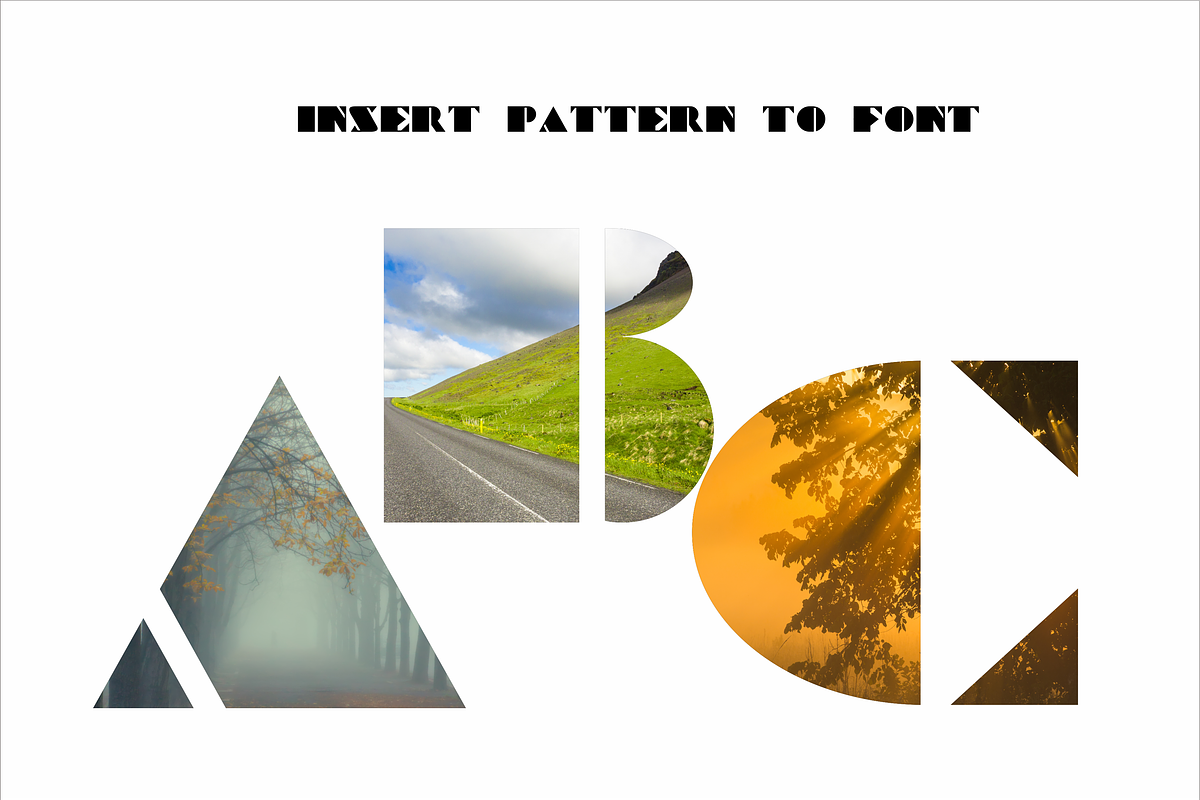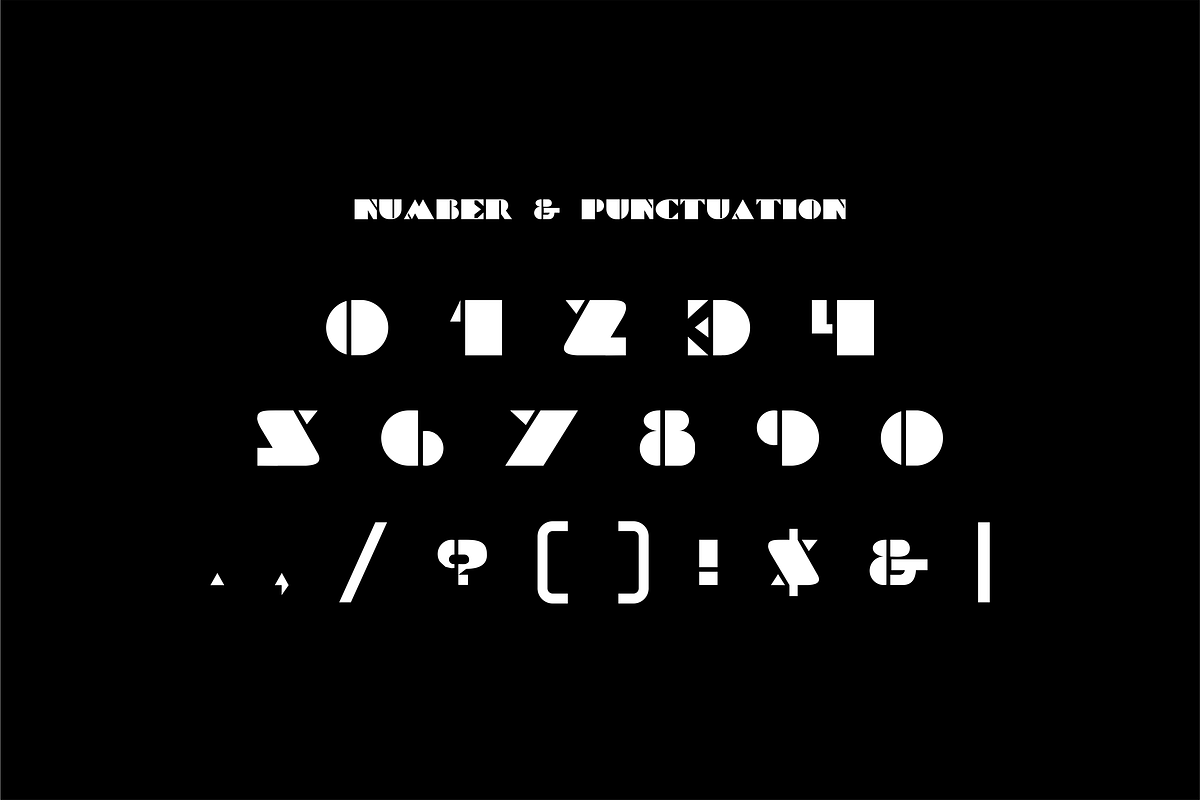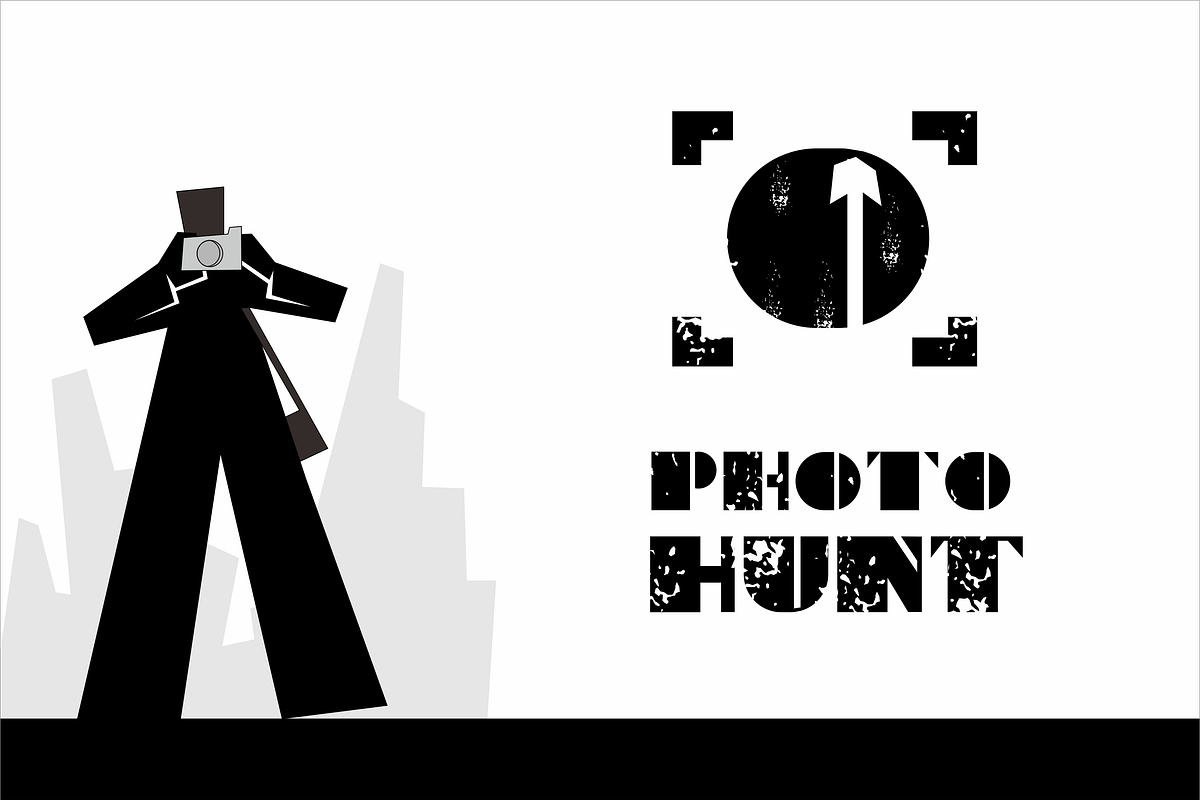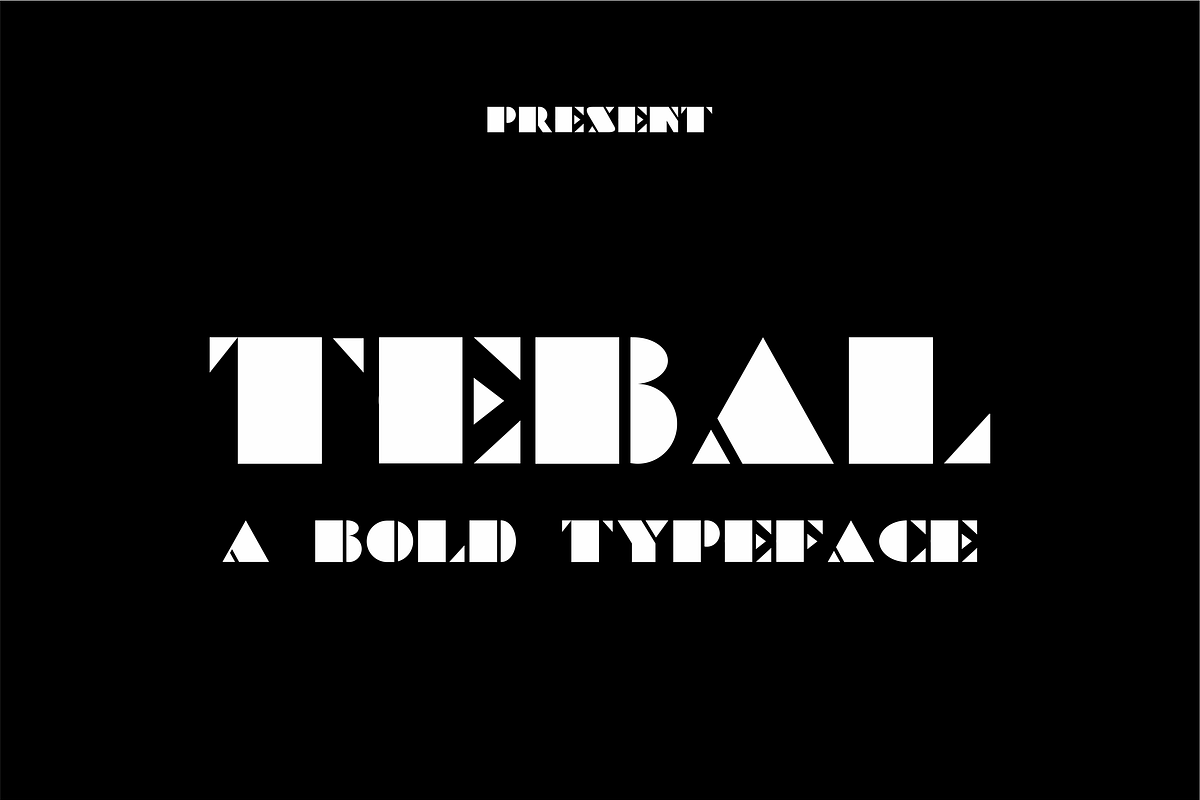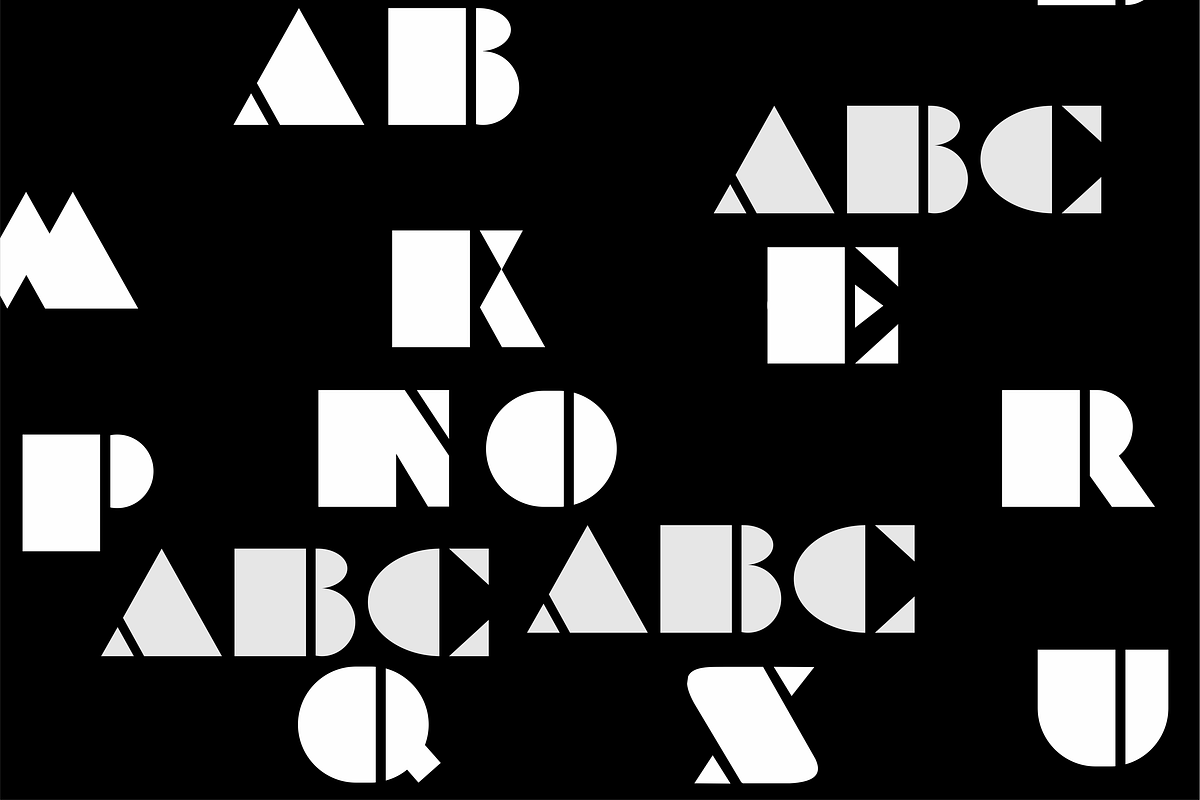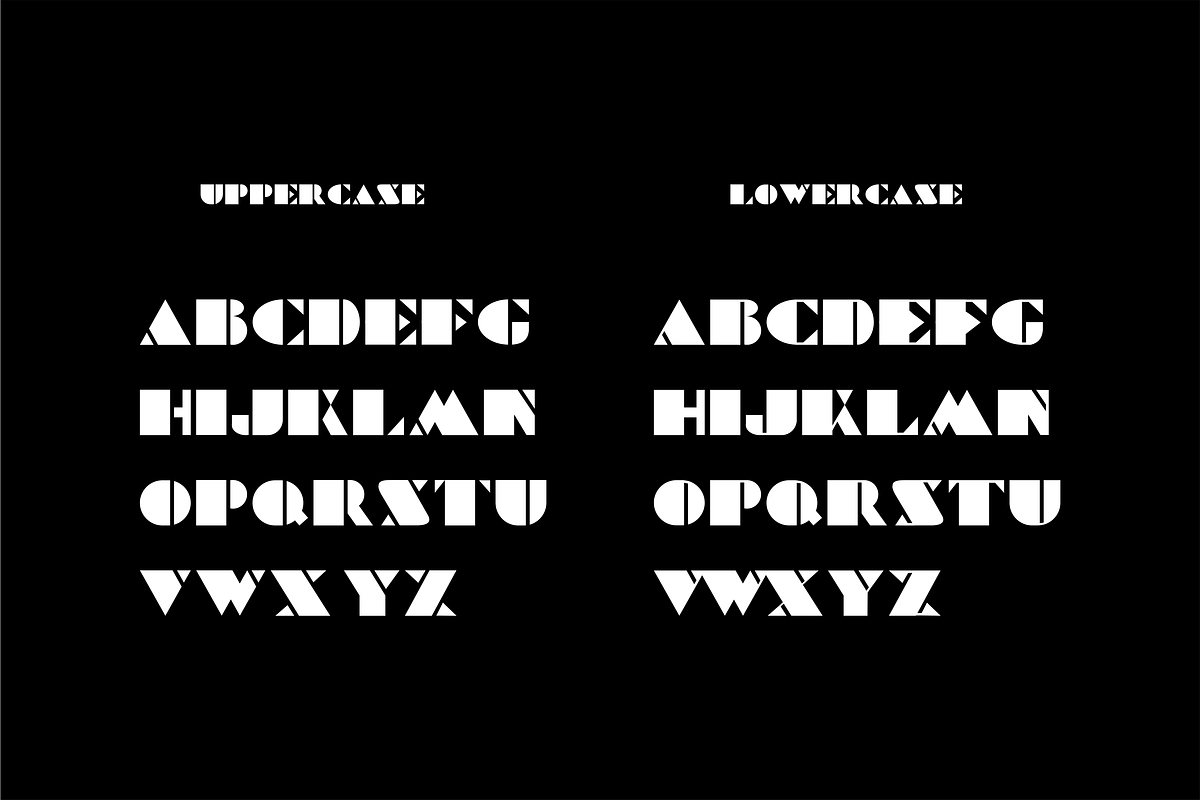
Tebal Font
Tebal is a simple serif typeface designed by Aan kurniawan. This typeface was inspired by classic design but with the feel of clean & simple modern design look. It works great for logo designs, titles, badges, labels and small amounts of text. It contains an uppercase alphabet with numbers and symbols.
Tebal Font by Akdesain fits naturally into Branding, posters, packaging, typography.